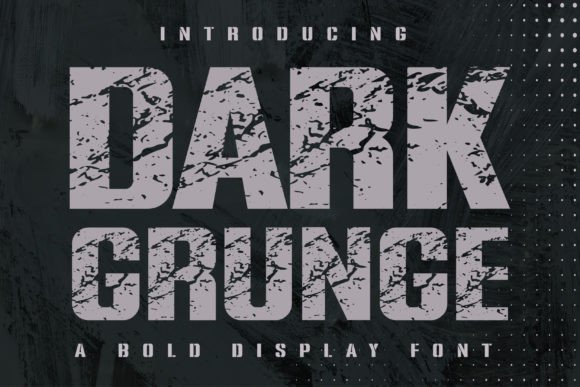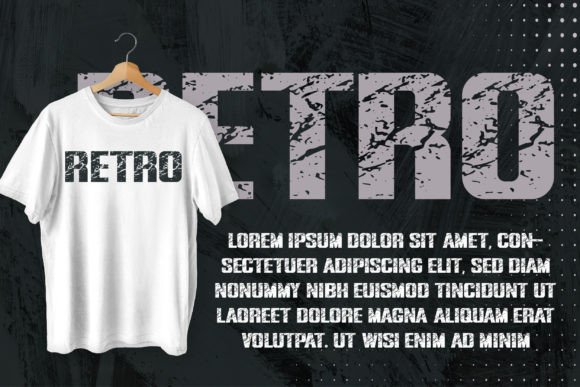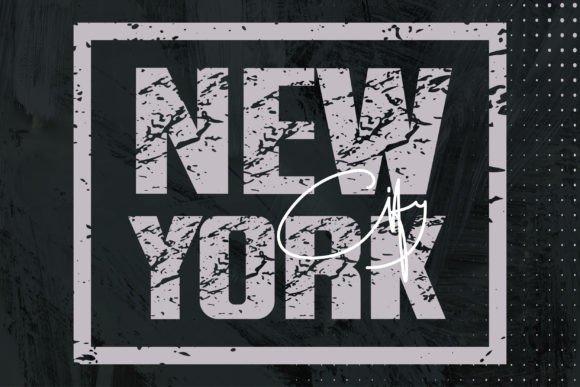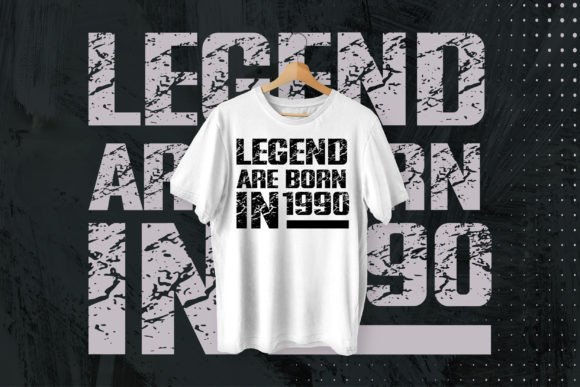
Dark Grunge Font: Bold Display Typography for Vintage Designs
About the Dark Grunge Font
Add a touch of class to your work with the Dark Grunge Font, a truly exceptional typeface. Dark Grunge is a distinctive display font that exudes coolness. Perfectly in sync with campus aesthetics and sports-themed visuals, Dark Grunge is also your secret weapon when your design calls for a strong, bold statement. Elevate the caliber of your creations with the uniquely old-school charm and audacious demeanor of the Dark Grunge font.
Dark Grunge excels in headlines, posters, and logotypes for brands targeting a younger demographic or conveying a rebellious, edgy aesthetic. It’s ideal for projects needing a strong visual impact, such as event posters, streetwear branding, or album art. Avoid using it for body text or UI elements; its highly stylized nature compromises readability in smaller sizes or extended use.
Pairing Dark Grunge with a clean sans-serif like Montserrat or a geometric sans-serif like Futura provides a strong contrast, balancing the font’s aggressive character with a sense of order. For a slightly softer contrast, consider pairing it with a neutral serif such as Lato or Playfair Display.
The font’s core personality is bold, rebellious, and energetic. Its vintage-inspired grunge aesthetic is well-suited to brands that embrace a street-smart, nonconformist image.
Dark Grunge Font Usage Examples
Dark Grunge Font Example